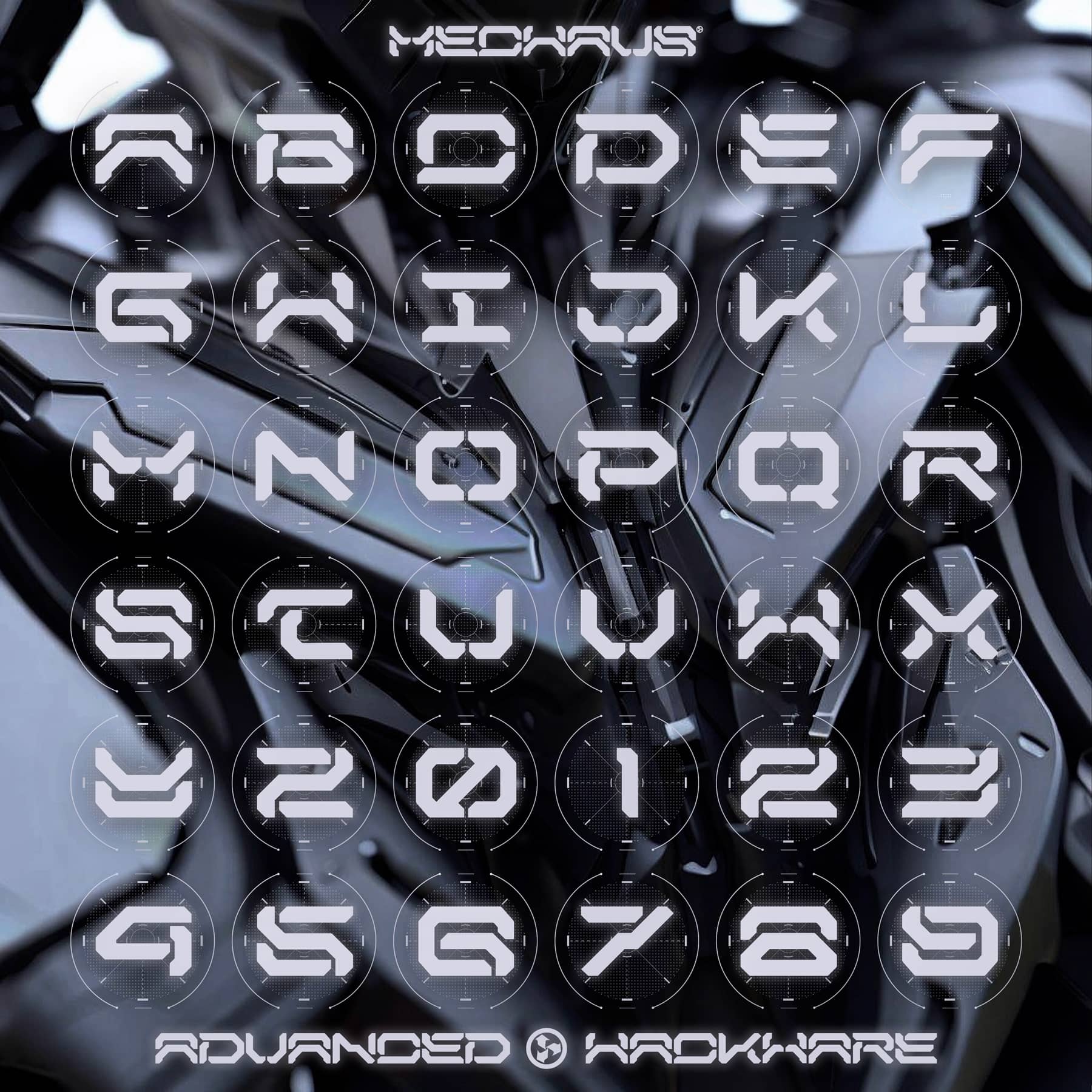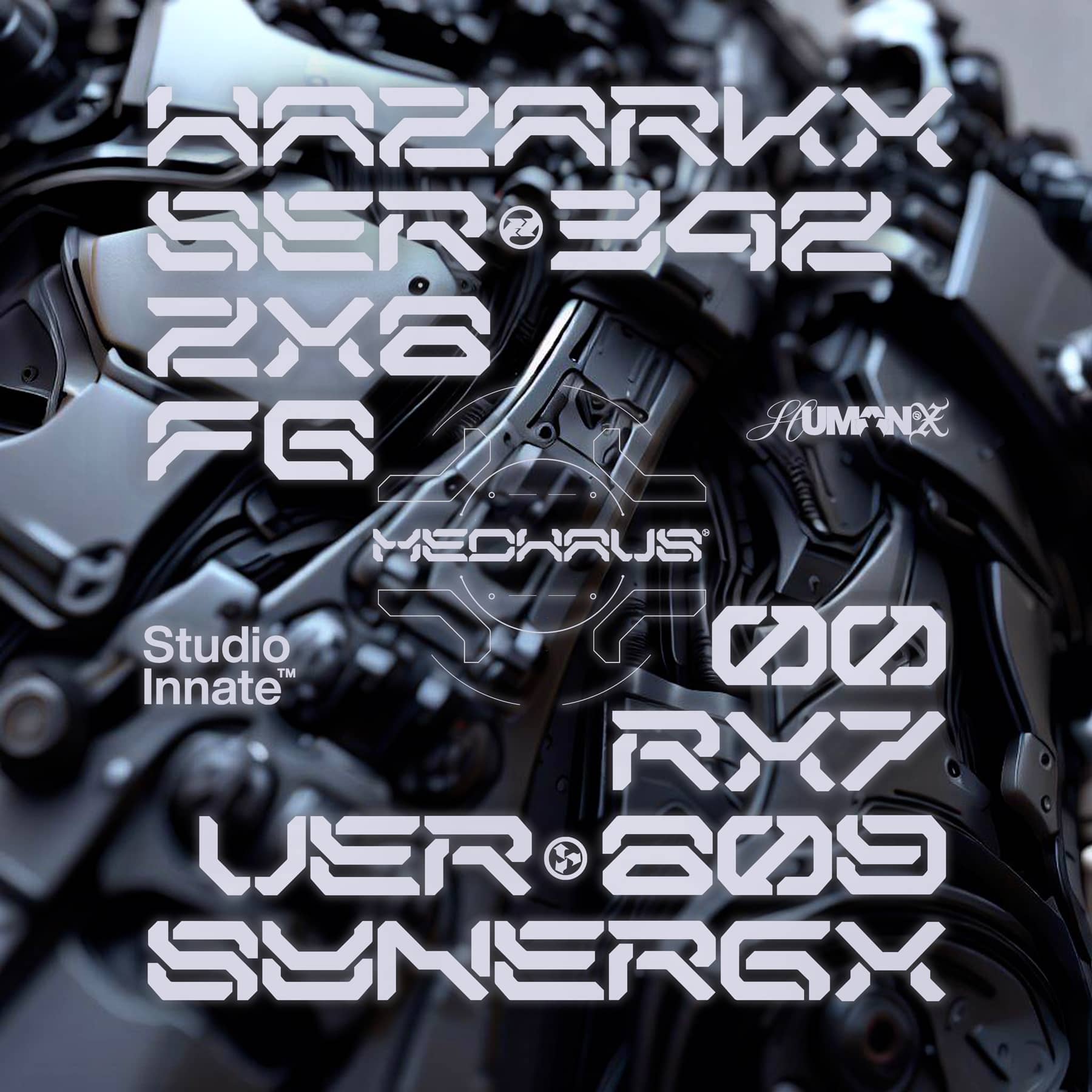
MECHAUS is the font that bridges the gap between the digital realm and advanced military aesthetics. This neo-digital stenciled typeface draws inspiration from cutting-edge mechs, resulting in a design that’s both futuristic and powerful.